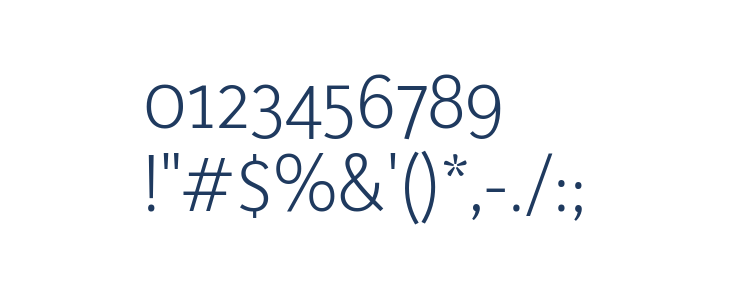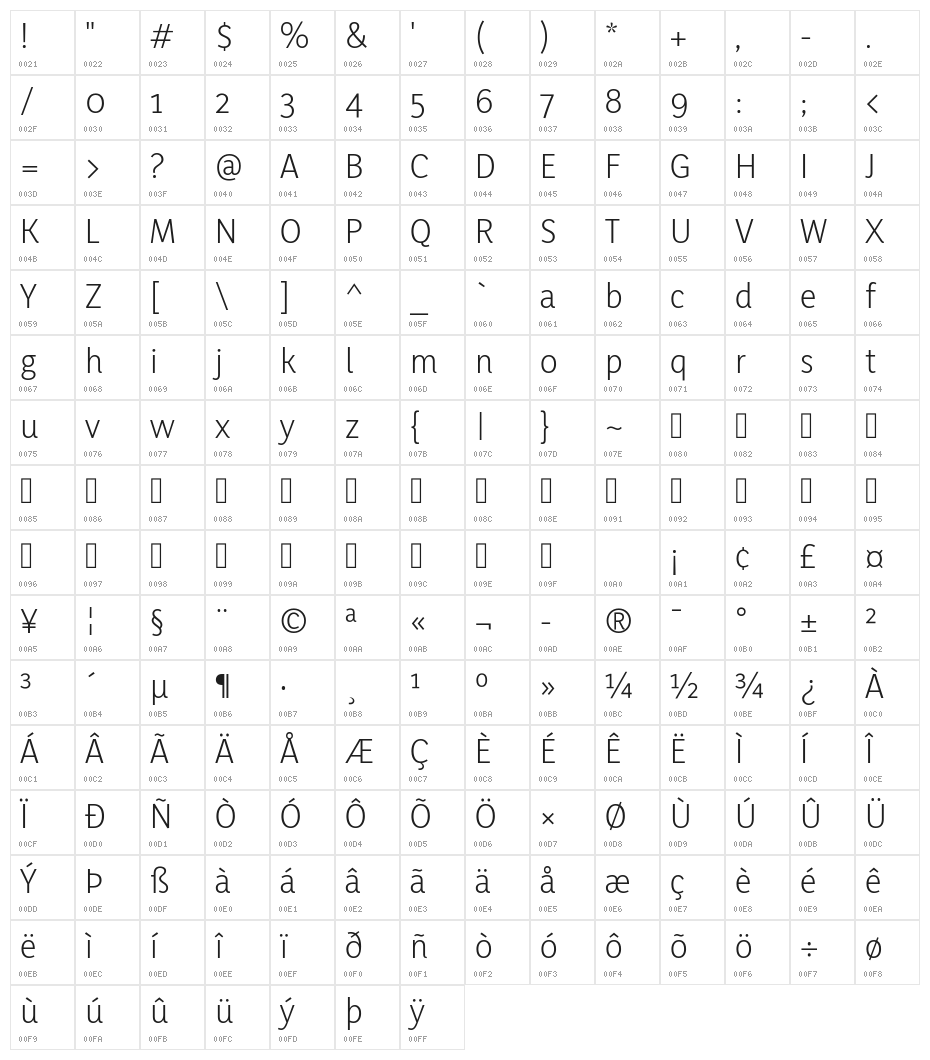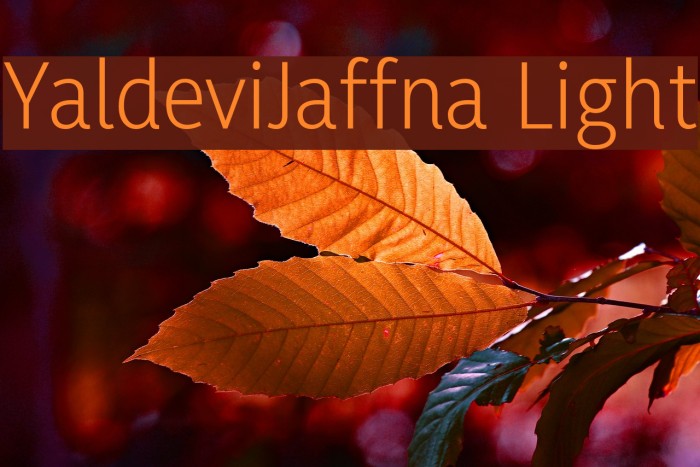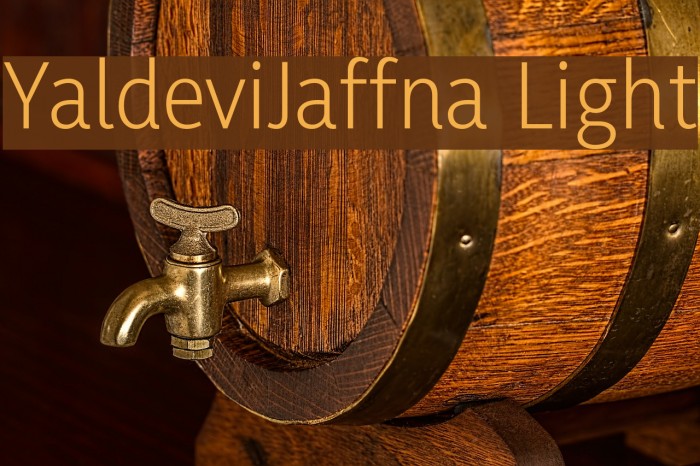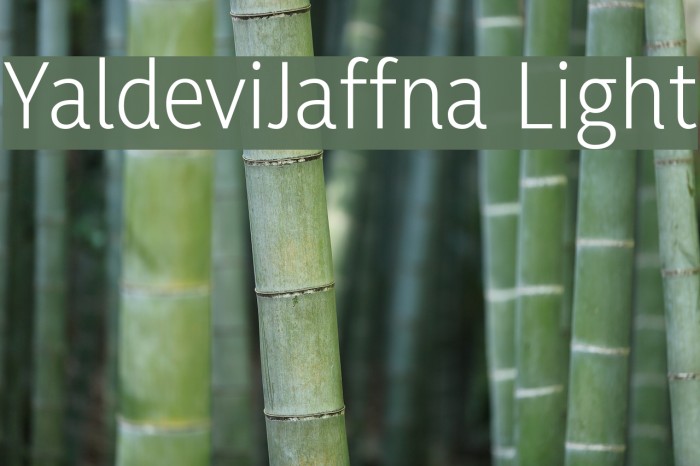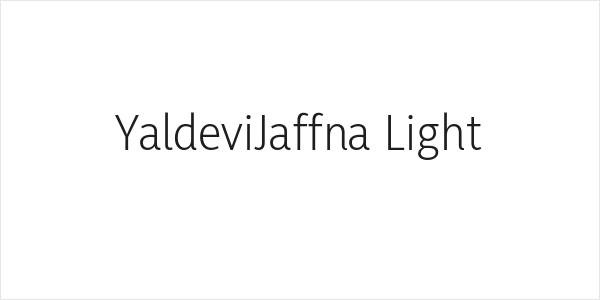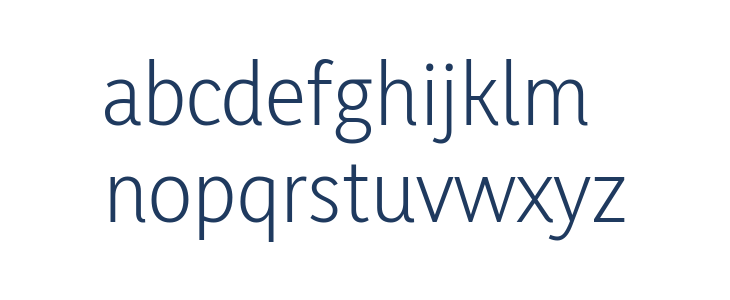
YaldeviJaffna Light Font
YaldeviJaffna Light Description
This font features a clean and modern sans-serif design, characterized by its simplicity and readability. The letterforms are well-balanced with a consistent stroke width, providing a harmonious and uncluttered appearance. The uppercase letters are slightly taller than the lowercase, offering a subtle distinction that enhances legibility. The numerals are clear and straightforward, matching the overall aesthetic of the alphabet. Special characters are designed with the same attention to detail, ensuring they integrate seamlessly with the rest of the typeface. The font's light weight contributes to its airy and open feel, making it suitable for a variety of applications where clarity and elegance are desired.
| Use Case | Body text, User interfaces, Branding |
| Proposed Projects | Ideal for web design, corporate branding, editorial layouts, and user interfaces. |